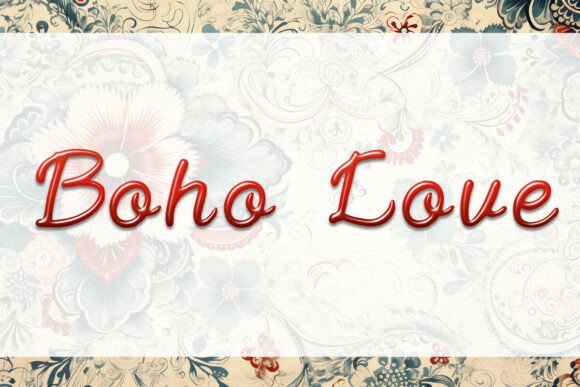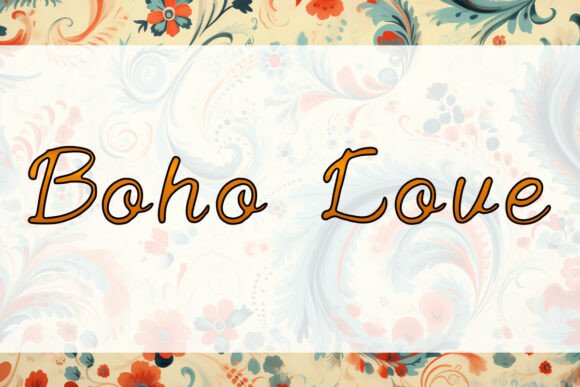
Unlocking the Charm of Boho Love Font
I’ll never forget the design moment that led me to discover Boho Love. I was working on a branding project for a boutique client, and I was struggling to find the perfect font that captured her free-spirited personality. I had tried countless fonts, but none seemed to convey the right amount of whimsy and charm. That’s when I stumbled upon Boho Love, and it instantly breathed life into my design. In this article, I’ll share with you why I’m obsessed with Boho Love and how you can unlock its full potential in your creative projects.
A Personal Review of Boho Love
As a designer, I’m always on the lookout for fonts that can add a touch of personality to my projects. Boho Love has quickly become one of my go-to fonts, and here’s why:
- ✨ Unique character: Boho Love has a one-of-a-kind style that sets it apart from other fonts.
- ✅ Versatility: This font can be used in a wide range of creative projects, from shirt designs to branding initiatives.
- 💫 Whimsical touch: Boho Love adds a lighthearted and artistic edge to any project.
However, no font is perfect, and Boho Love has a few quirks:
- 🤔 Limited use in formal contexts: Boho Love is best suited for creative projects; it may not be the best choice for formal or corporate designs.
- ⚠️ Glyph limitations: While Boho Love has a range of glyphs and stylistic alternates, it may not have every character or symbol you need.
A Practical Guide to Using Boho Love
The Story Behind Boho Love
Boho Love was designed with the creative spirit in mind. Its designer wanted to create a font that captured the essence of bohemian style – free-spirited, artistic, and eclectic. With its unique character and whimsical touch, Boho Love is the perfect choice for designers and crafters who want to add a touch of personality to their projects.
| Font Name | Boho Love Font |
| Author | Heidi Vargas-Smith |
| What type of projects is Boho Love best suited for? | Boho Love is perfect for creative projects like shirt designs, branding initiatives, magazines, and greeting cards. |
| Is Boho Love a script font? | Boho Love is a stylized font with script-like qualities, but it’s not a traditional script font. |
Boho Love is a versatile and charming font that’s perfect for designers, crafters, and creative hobbyists. With its unique character and whimsical touch, it’s sure to add a touch of personality to your projects. Whether you’re working on a branding initiative, a greeting card, or a social media graphic, Boho Love is an excellent choice. So why not give it a try and see how it can transform your designs?